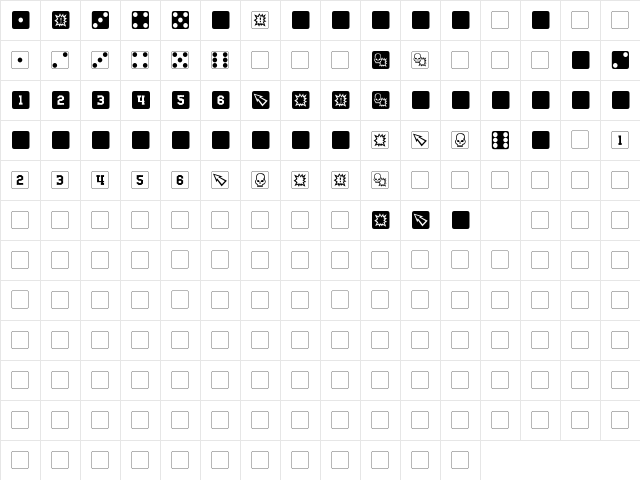
dPoly Block Dice Regular
| Foundry | Neale Davidson |
| Designer | Neale Davidson |
Design Context for dPoly Block Dice Typeface
dPoly Block Dice is a composed and adaptable typeface that performs quietly and consistently across a wide range of design contexts.